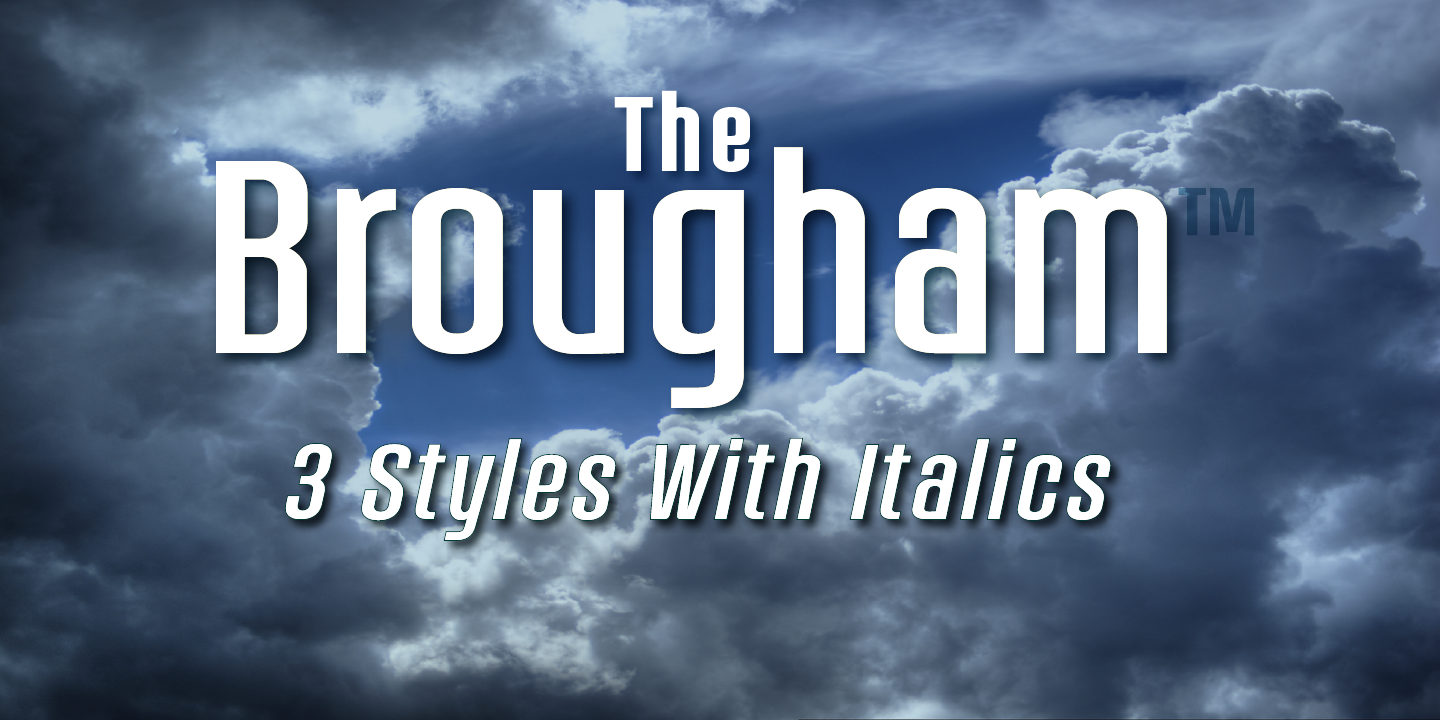
Brougham Font Free Download is a bold, Art Deco-inspired display typeface with a touch of vintage class. Perfect for retro posters, barbershop branding, upscale packaging, movie title sequences, cocktail menus, and event invitations that aim to impress with elegance and flair.
What makes Brougham Font so exciting is its tall, geometric letterforms combined with classic decorative flair. It has a timeless presence that instantly evokes the glamor of the Roaring Twenties, jazz clubs, old theaters, and classic American design—all with a modern twist.
The Brougham Font family includes a variety of eye-catching styles such as Regular, Condensed, Expanded, and Inline, giving designers room to experiment while maintaining consistent visual identity across their work.
Whether you’re channeling Gatsby vibes or giving your branding a luxurious retro touch, Brougham Font Free Download brings charm, charisma, and clarity to the table. Test it out freely, but remember—you’ll need to purchase a license for any commercial projects. Add vintage prestige and modern personality to your typography with Brougham.